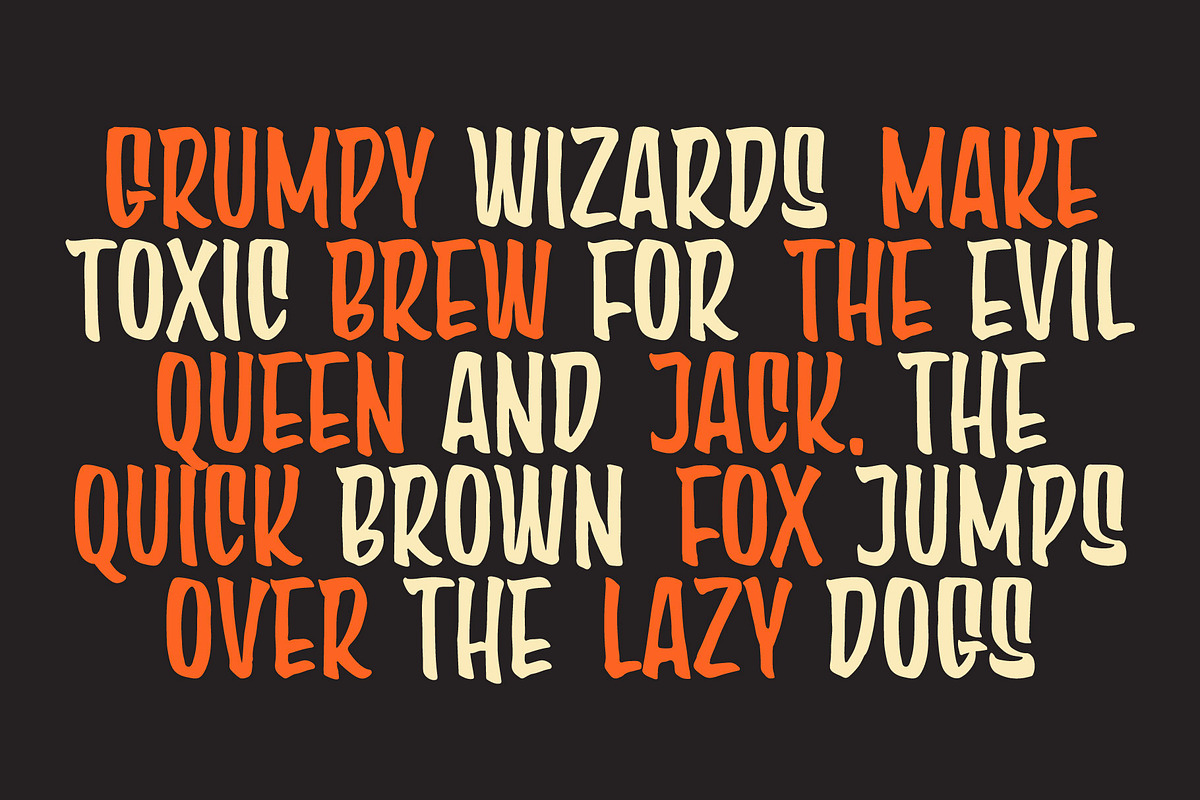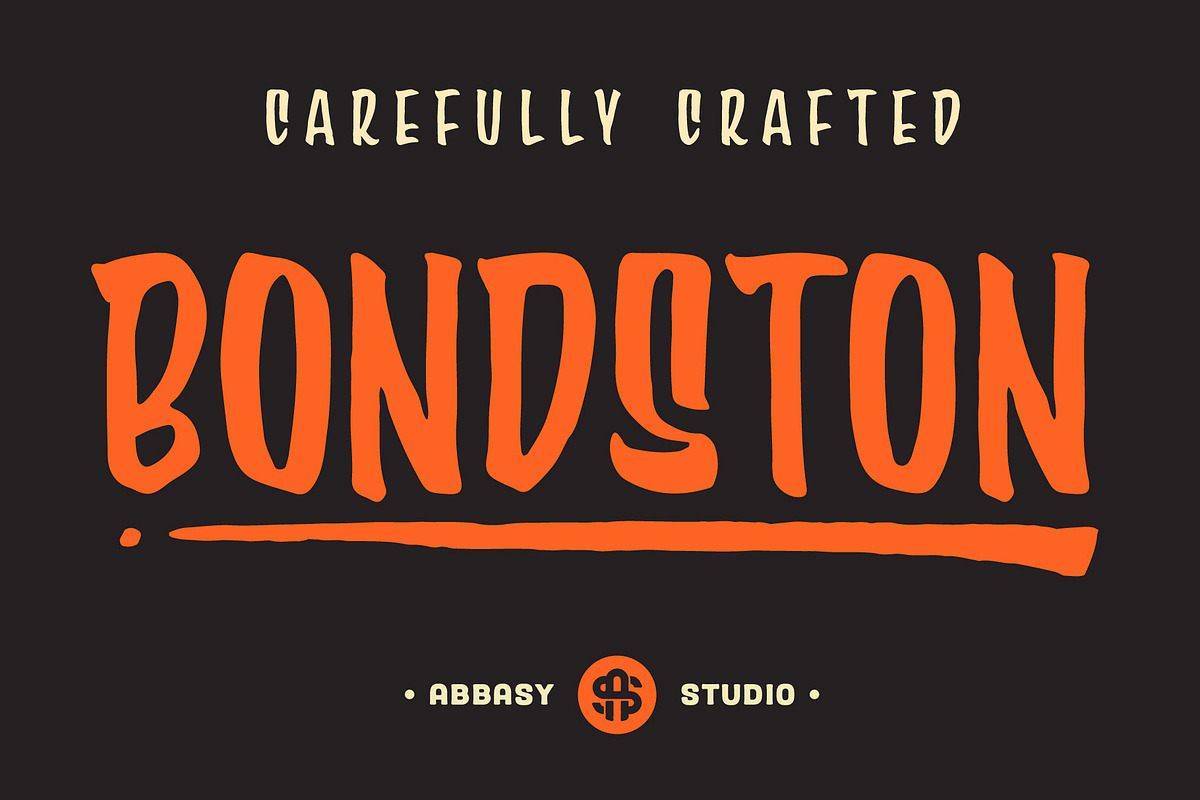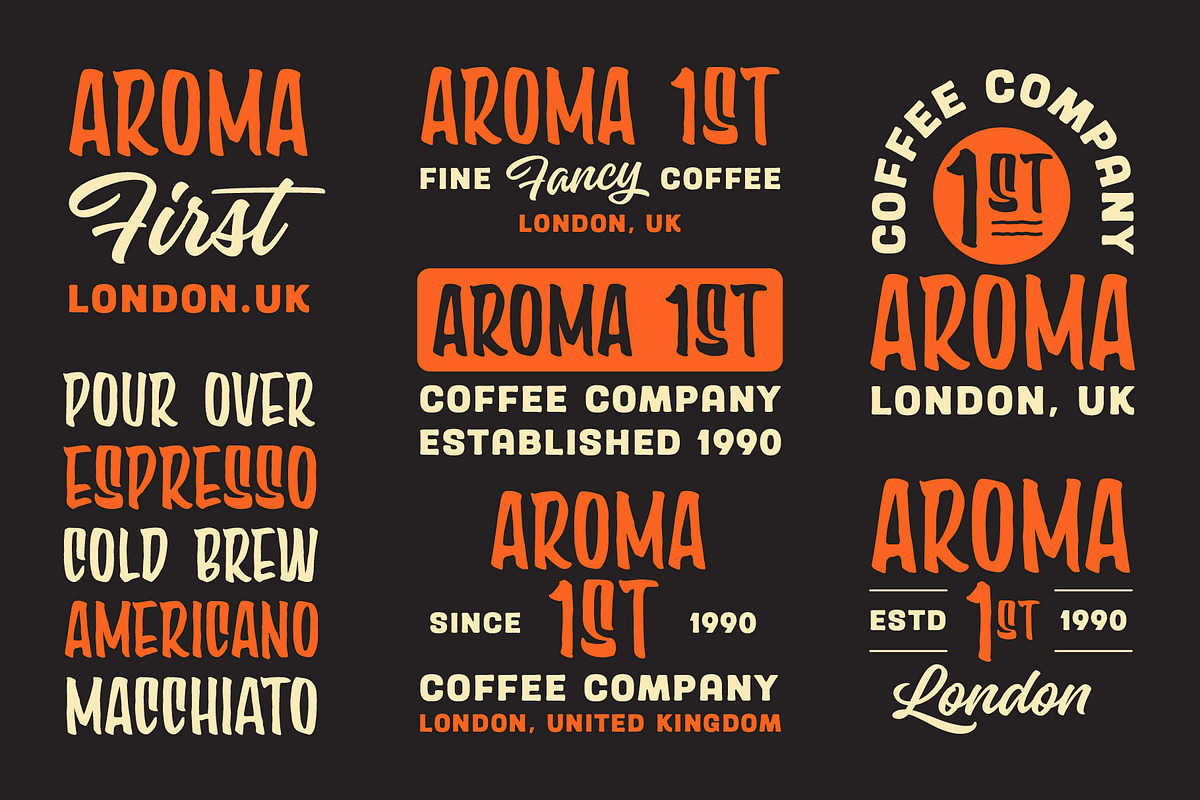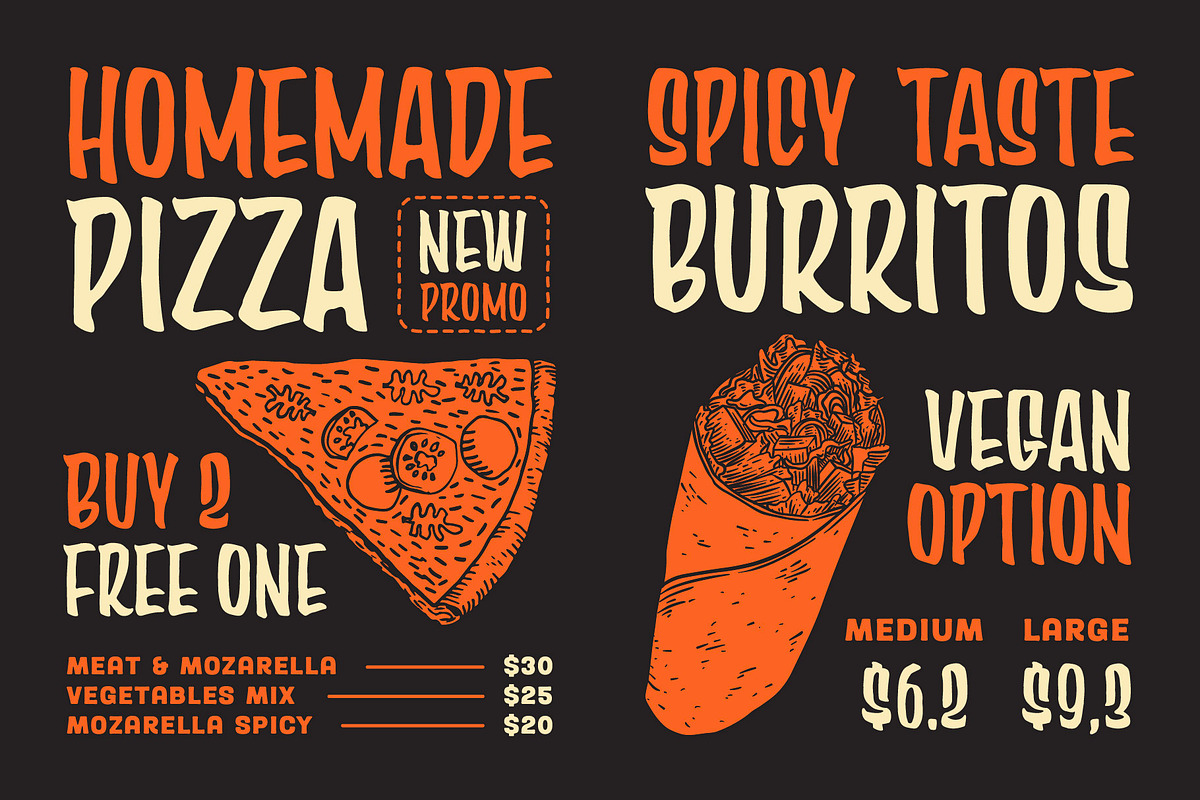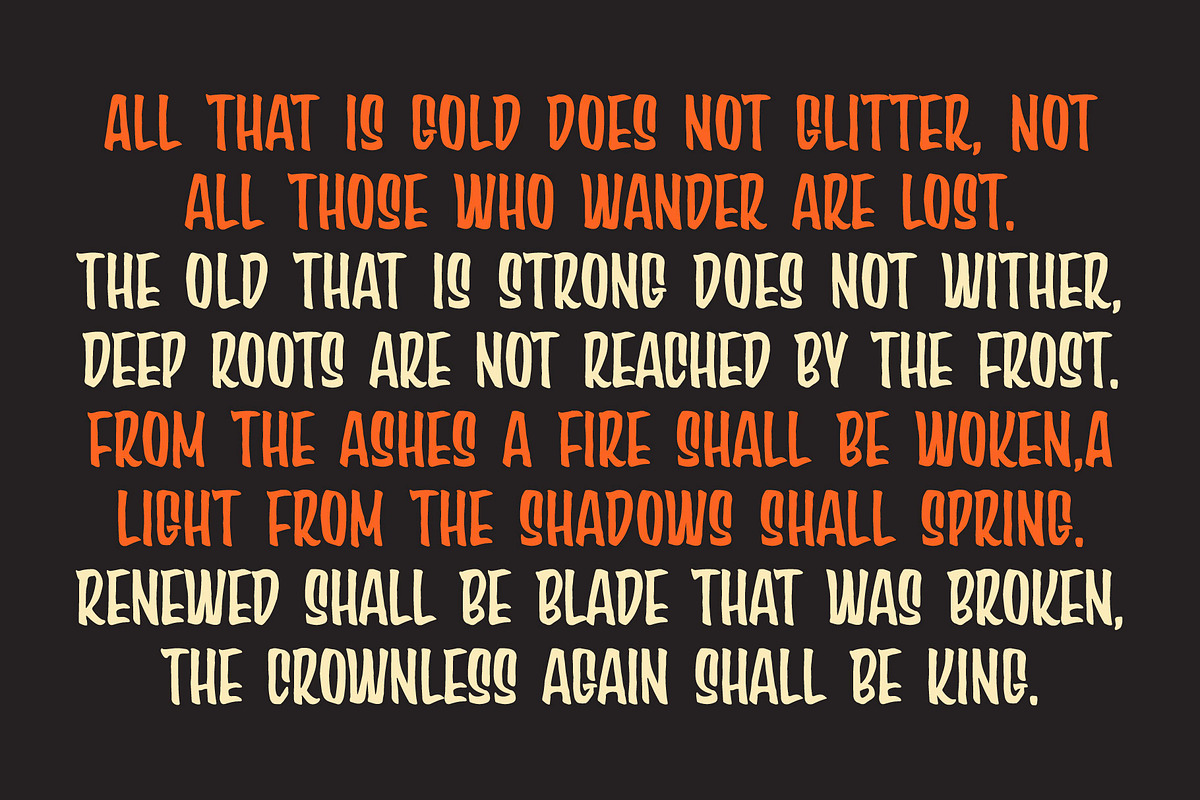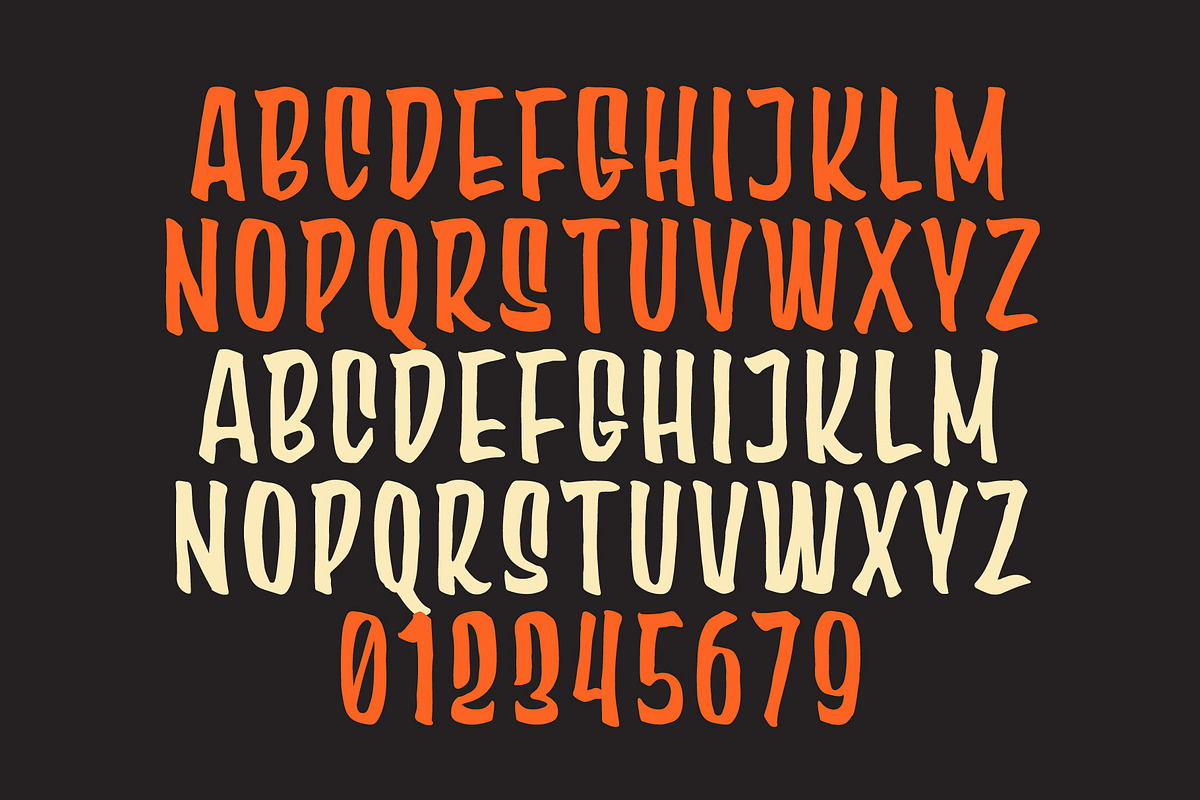
Bondston
Bondston is a typeface whose unique, strong, and bold appearance makes it an attention-grabbing choice for any design project. Bondston's unique look makes it an ideal choice for classic branding projects, especially those that require a strong and confident feel. Whether you are designing packaging for a new product or creating a logo for a start-up business, Bondston can help you create a unique and memorable brand identity. The strong & confident look is perfect for businesses that appeal to a younger or more creative audience.